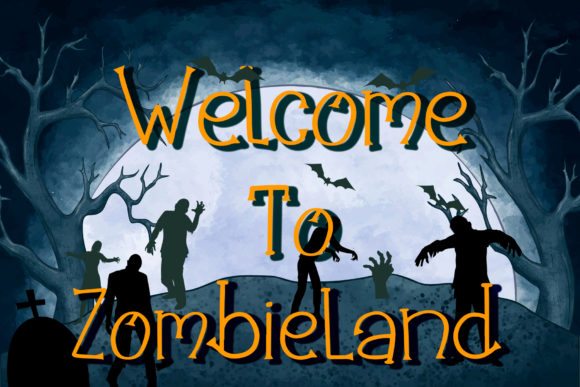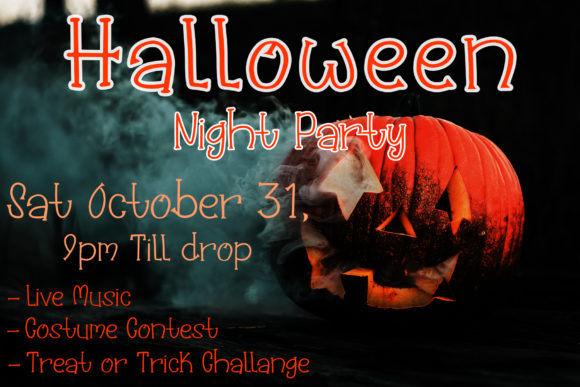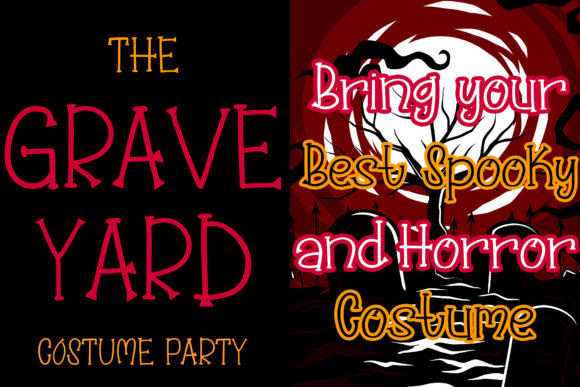
Introduction to Pumpkin Jack Font
Pumpkin Jack is a fabulous handwritten font.
It features a spooky theme that makes it perfect for any Halloween project .